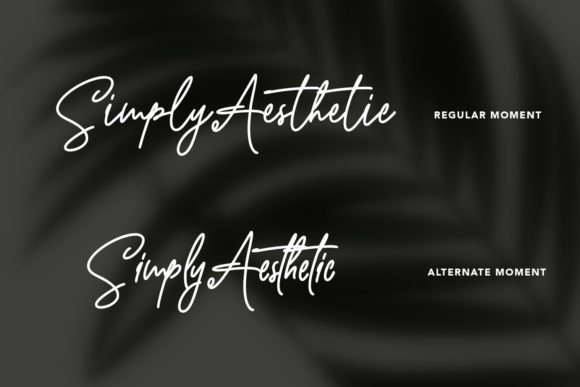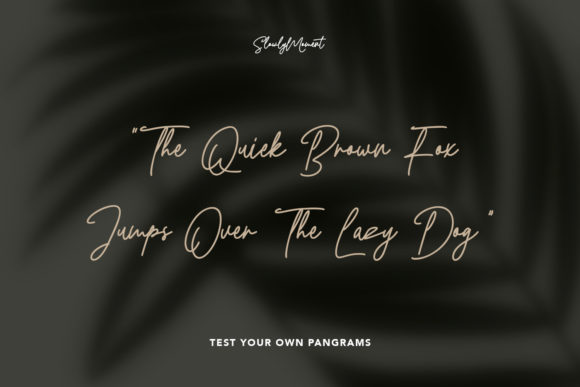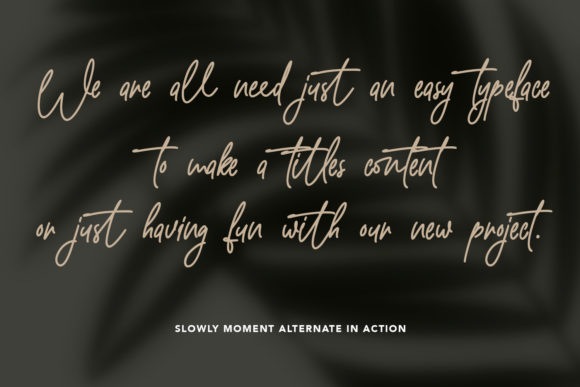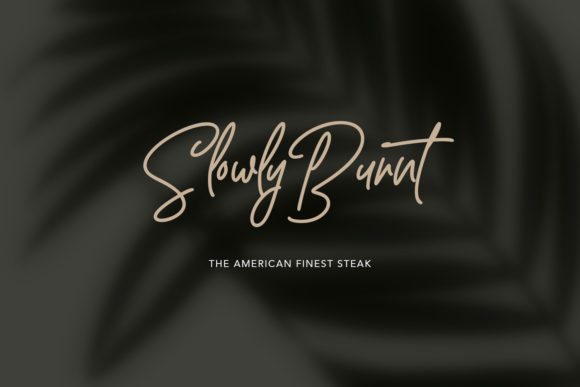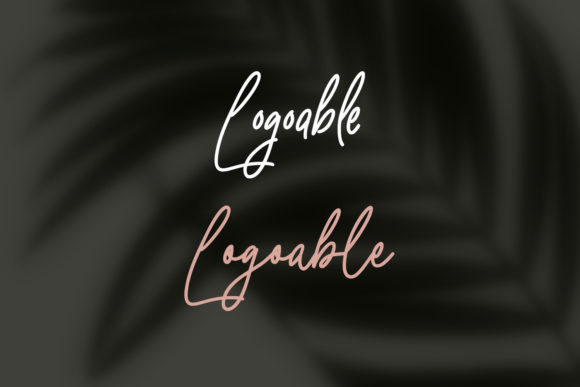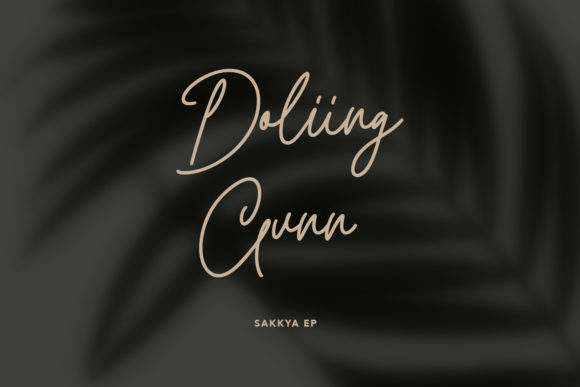
Introduction to Slowly Moment Font
Slowly Moment is a clean and modern script font.
Fall in love with its incredibly versatile style and use it to create gorgeous wedding invitations, beautiful stationary art, eye-catching social media posts, and much more .
Key Features of Slowly Moment Font